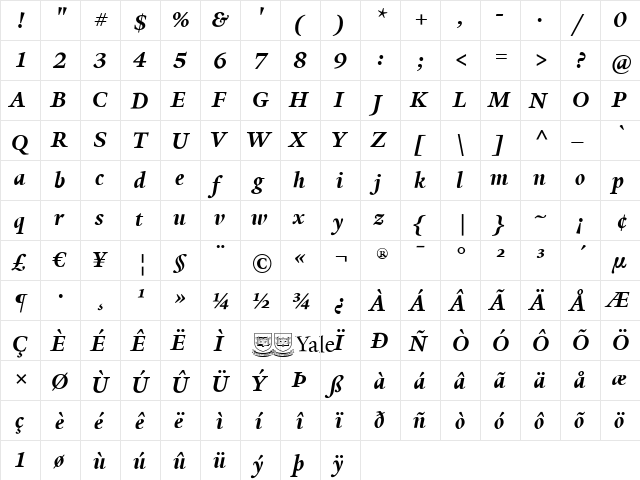
YaleAdmin Bold Italic Font Preview
YaleAdmin Bold Italic
YaleAdmin Bold Italic Font Details
| Foundry | Carter & Cone Type Inc |
Design Context for YaleAdmin Typeface
YaleAdmin is a composed and adaptable typeface that performs quietly and consistently across a wide range of design contexts. The dynamic lean of this cut emphasises speed and emphasis in any layout. The heavy weight commands attention and anchors typographic hierarchies.
Pro Tip: Try YaleAdmin for annotation and caption copy alongside an upright companion — the contrast in angle creates a dynamic but ordered typographic system.